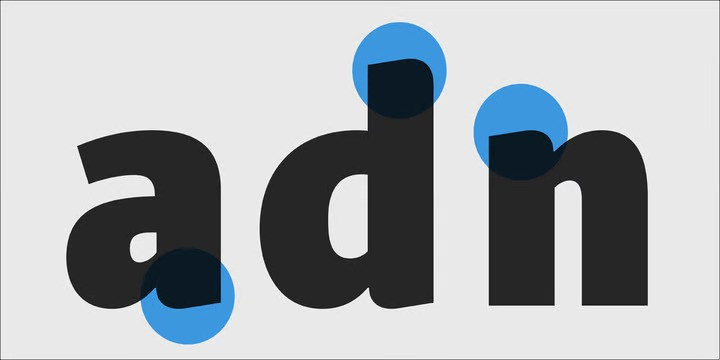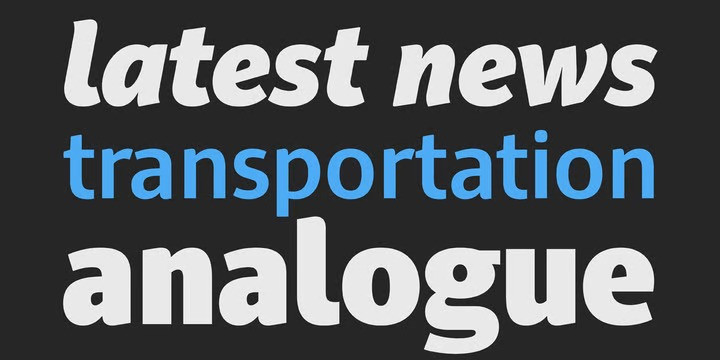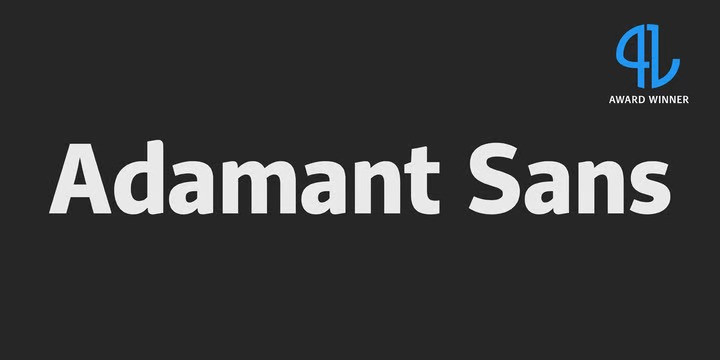
PF Adamant Sans Pro Font
Adamant Sans on Behance. Adamant Sans: Specimen Manual PDF. Adamant Sans is a contemporary and very functional typeface. It stands out from the crowd with its uniquely designed rounded corners and beautiful italics. This carefully designed family consists of 18 fonts, including true italics. Its extreme weights, such as hairline and black are ideal for setting big and powerful headlines, while intermediate weights work very well in long texts at small point sizes. Weights are finely balanced so that they can be easily combined, depending on the type of paper and other conditions. Thanks to its proportions, high x-height and wide apertures, this typeface is very legible and suitable for setting books, magazines, newspapers, but is also valuable for use in large sizes, as well as for complex corporate projects. It supports advanced typographic features such as small caps, lining and oldstyle figures in proportional and tabular widths, fractions, ligatures, etc., and provides simultaneous support for Latin and Cyrillic as well as kerning for these languages. Adamant Sans is the ideal companion of the Adamant serif version.